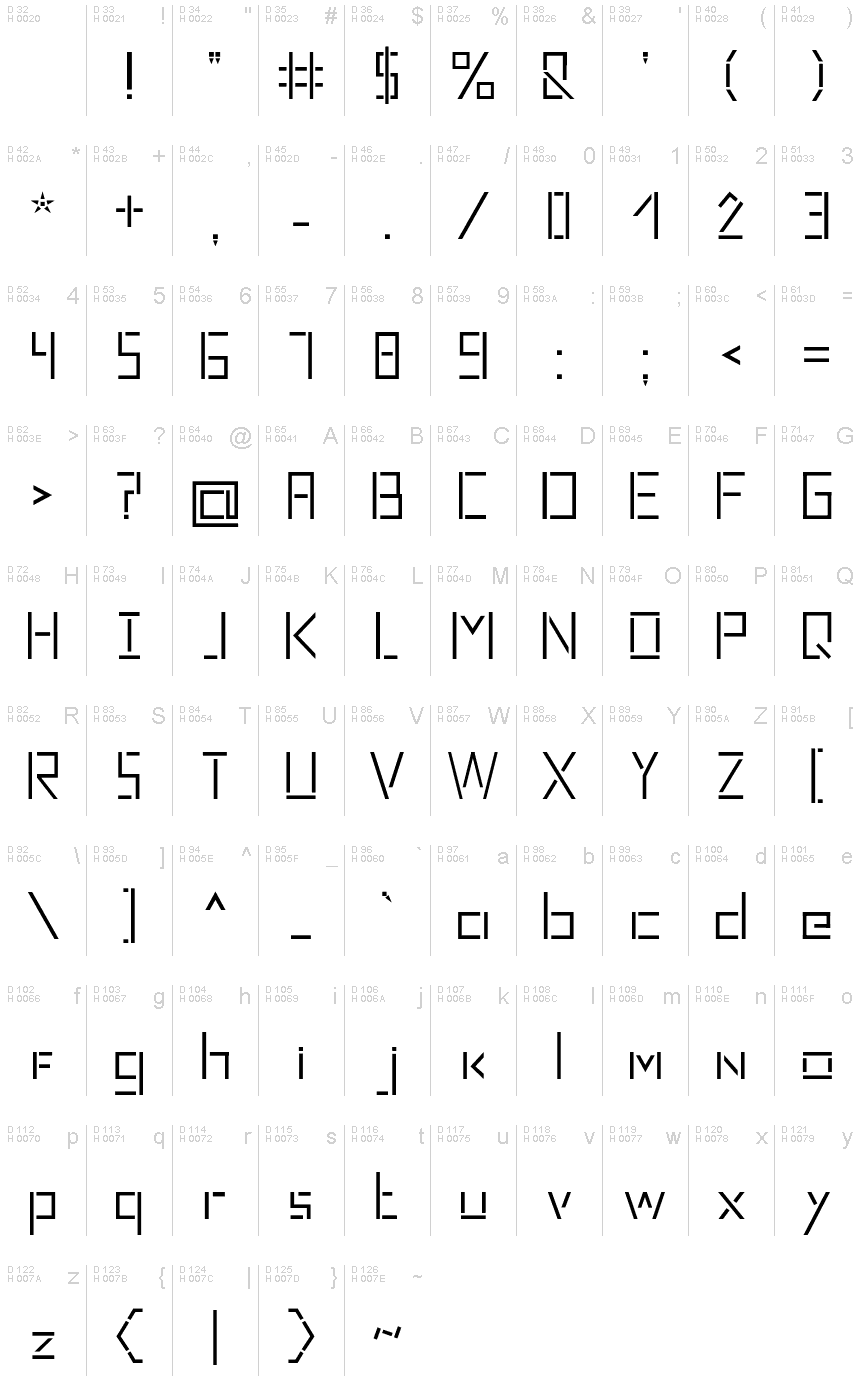
Sharp Cardinal
It's my first font, and I put a lot of time and effort in it.
The reason why I created It, was because around my city and online I see fonts with what looks to be random cuts on the letters to make them look cooler.
So I tried to create a font that will take advantage of the idea.